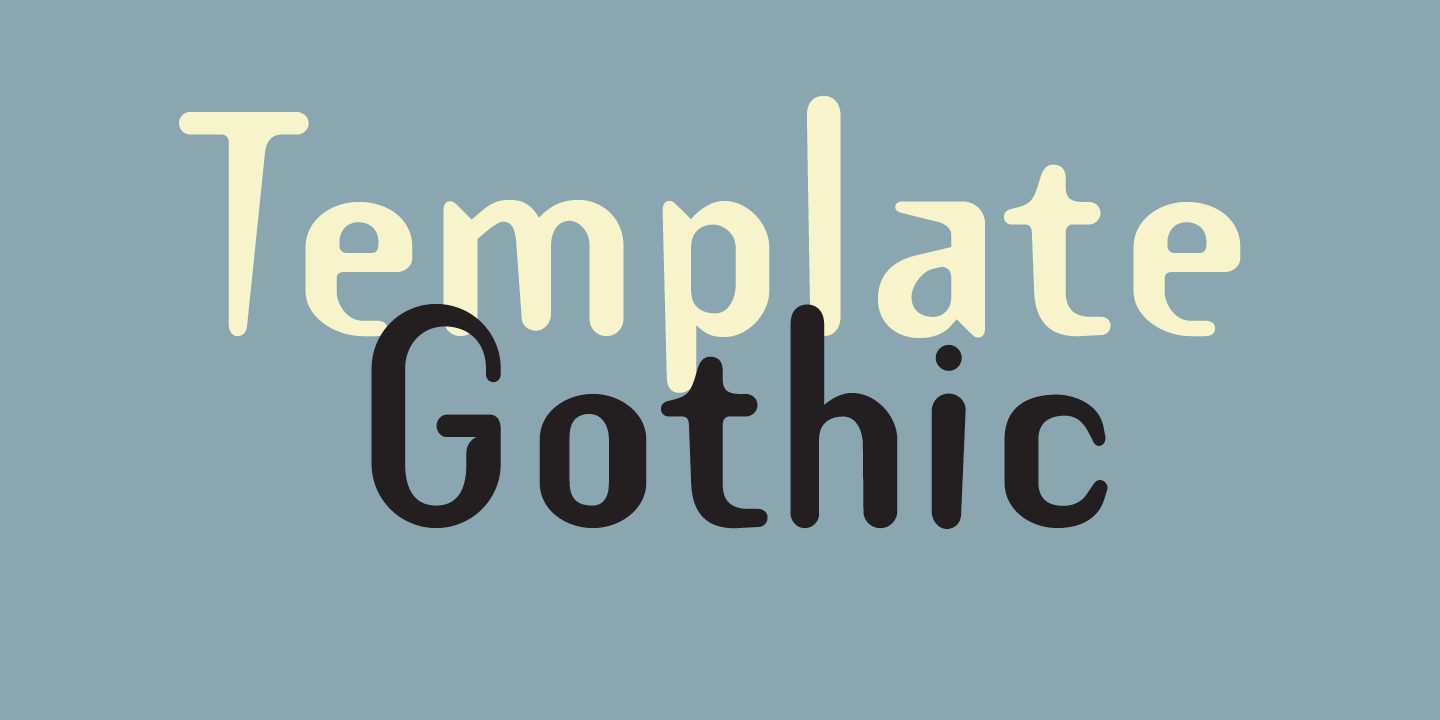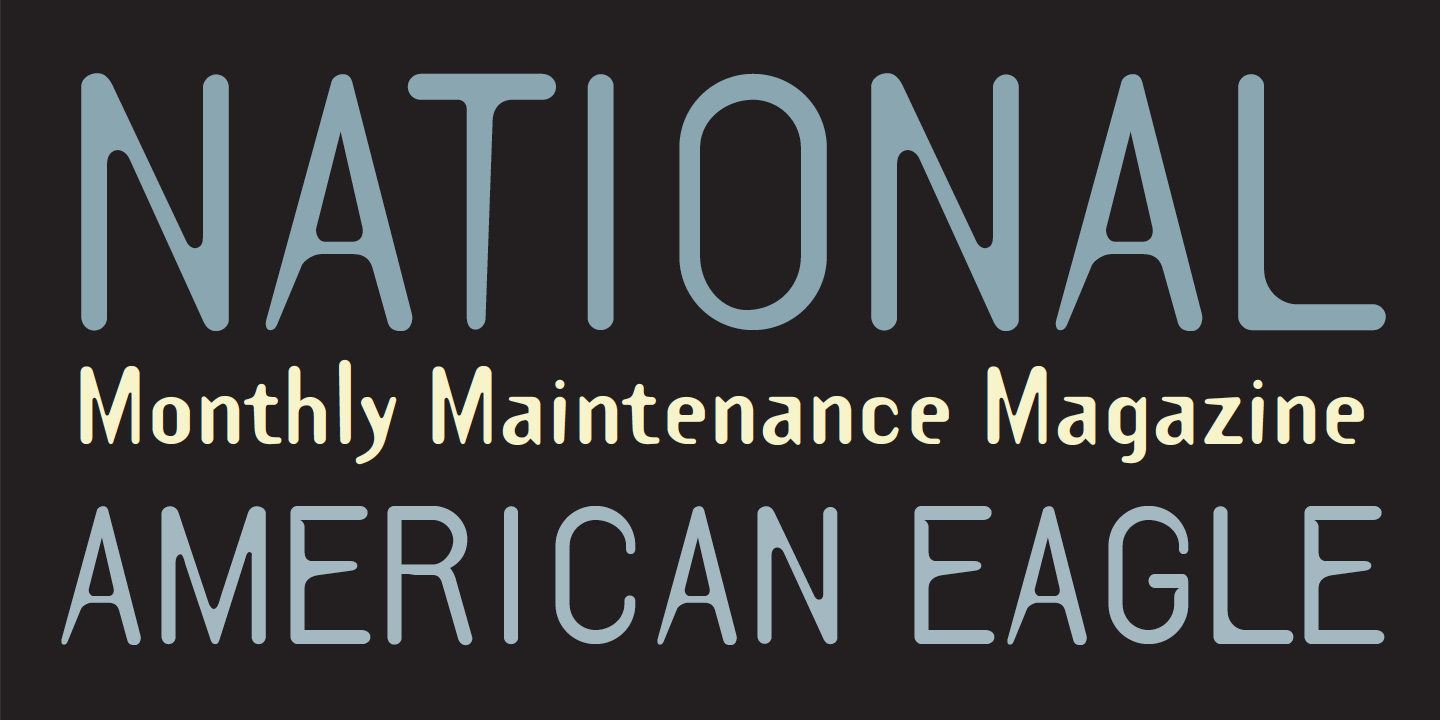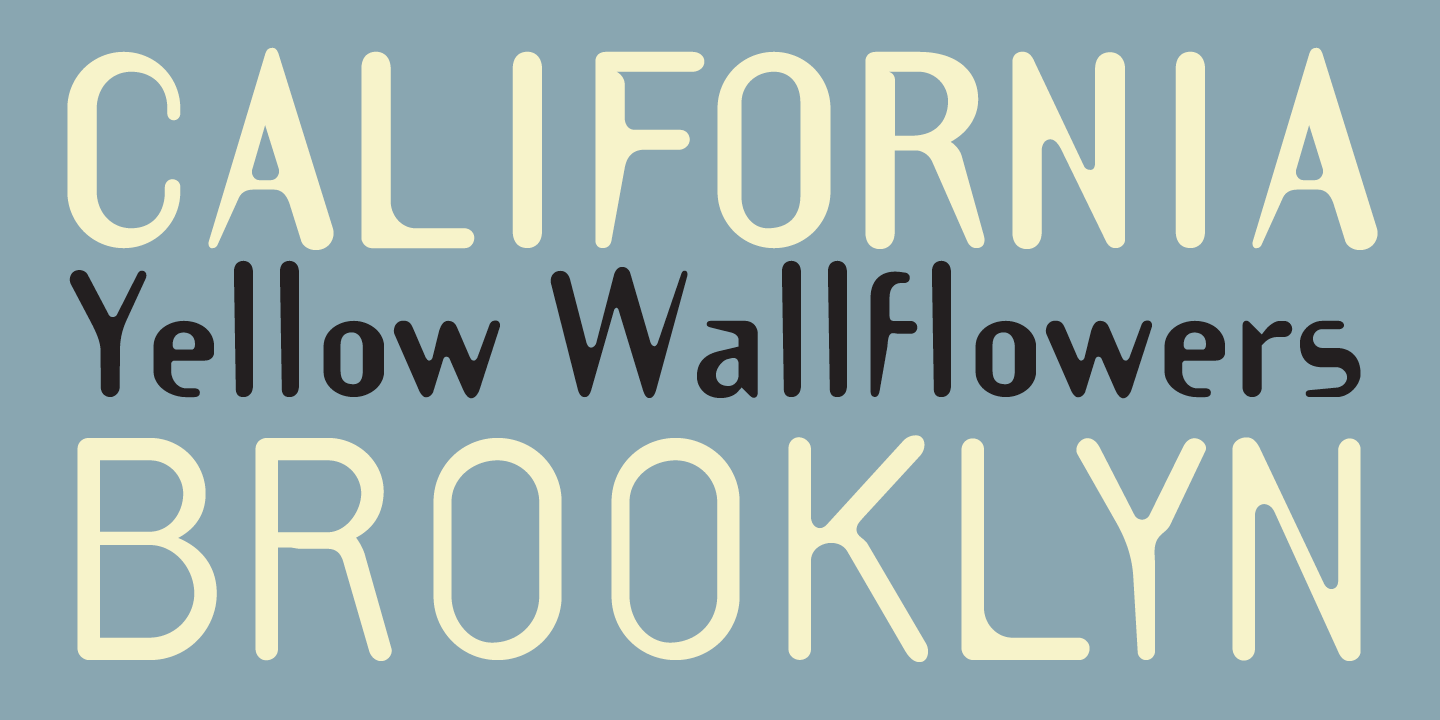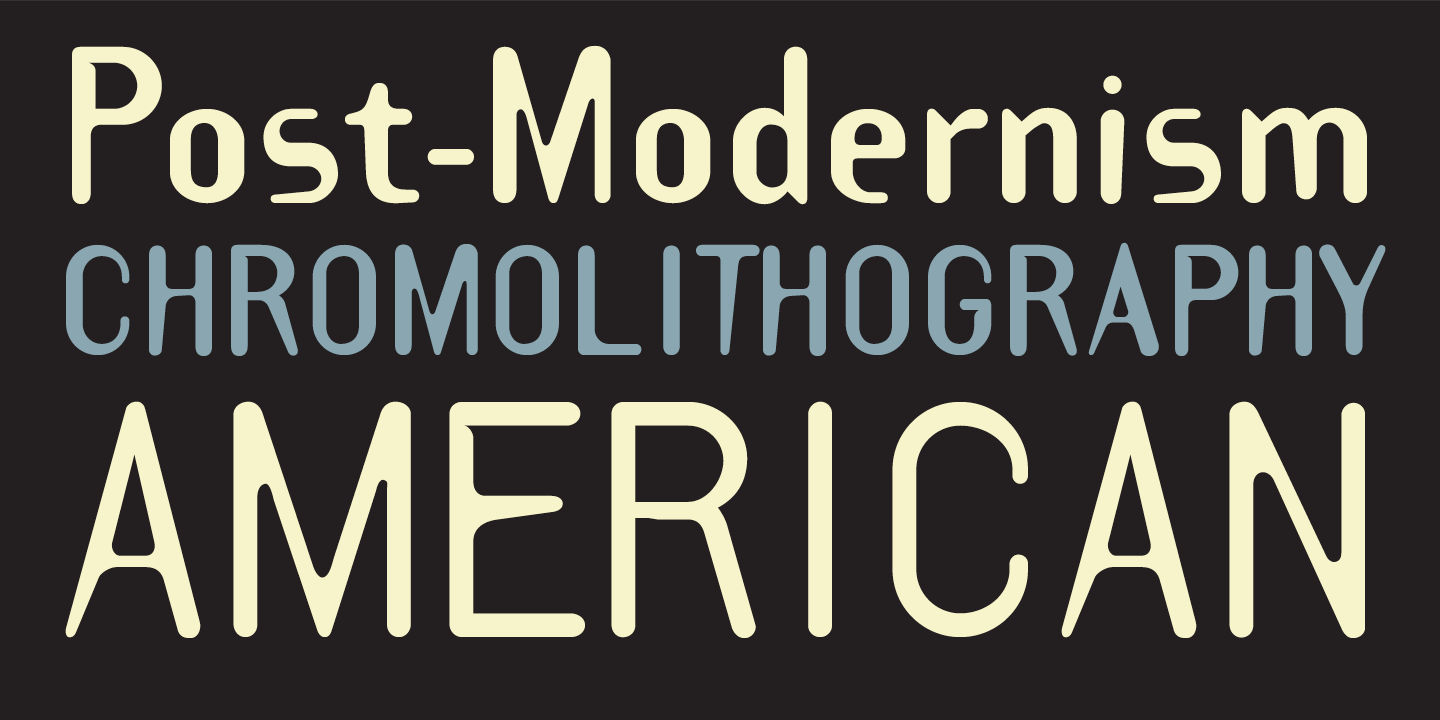
Template Gothic (Latin + Central European + Cyrillic + Greek)
Designed by Barry Deck in 1990. More...
Template Gothic was designed by Deck while he was studying design at CalArts in Valencia, California in the late 80s and early 90s. CalArts was one of the first design schools to experiment with type design on the computer. Under the guidance of instructors Jeffery Keedy and Ed Fella, the program generated a wealth of type designs.
Template Gothic is an important milestone in the history of digital fonts due to its popularity but also because of the designer’s unique voice and the vernacular source he used as inspiration—a sign posted in his neighborhood laundromat.
Template Gothic was ubiquitous by the end of the 1990s, representing the aesthetic of imperfection beloved by certain designers during the postmodern era. Deck, like other type designers of the time, spoke of his desire to abandon the perfection of modernist letter forms: “I was inspired to design a face that looked as if it had suffered the distortive ravages of photo mechanical reproduction.” His typeface reflects “more truly the imperfect language of an imperfect world, inhabited by imperfect beings.”
In 2011 Template Gothic was one of 23 digital typefaces included in the permanent architecture and design collection of the Museum of Modern Art in New York.